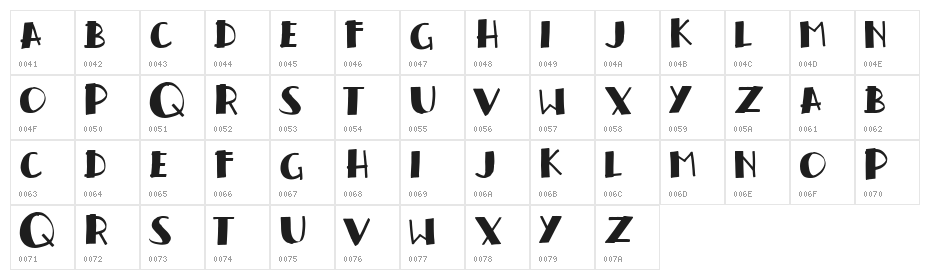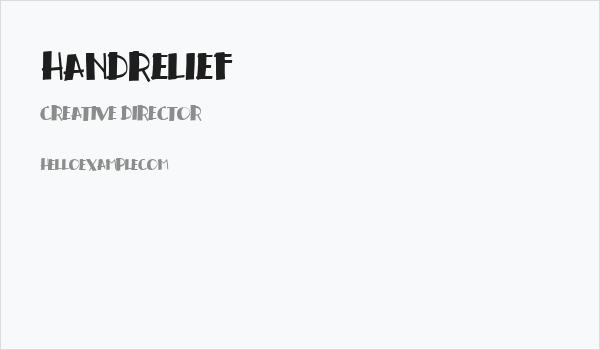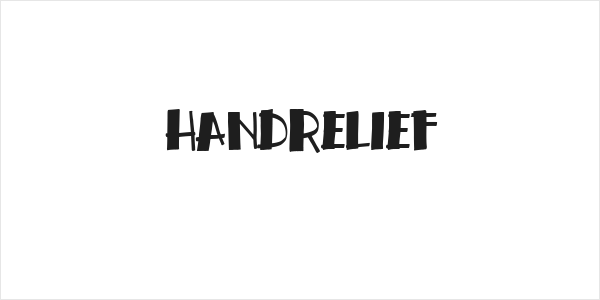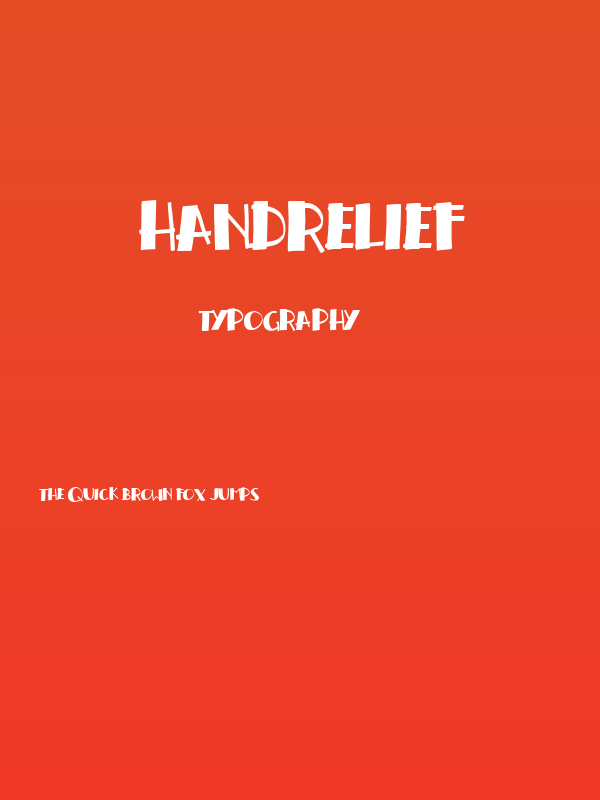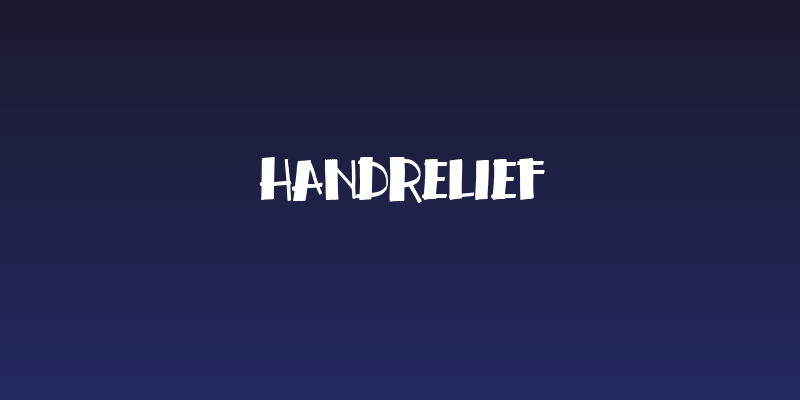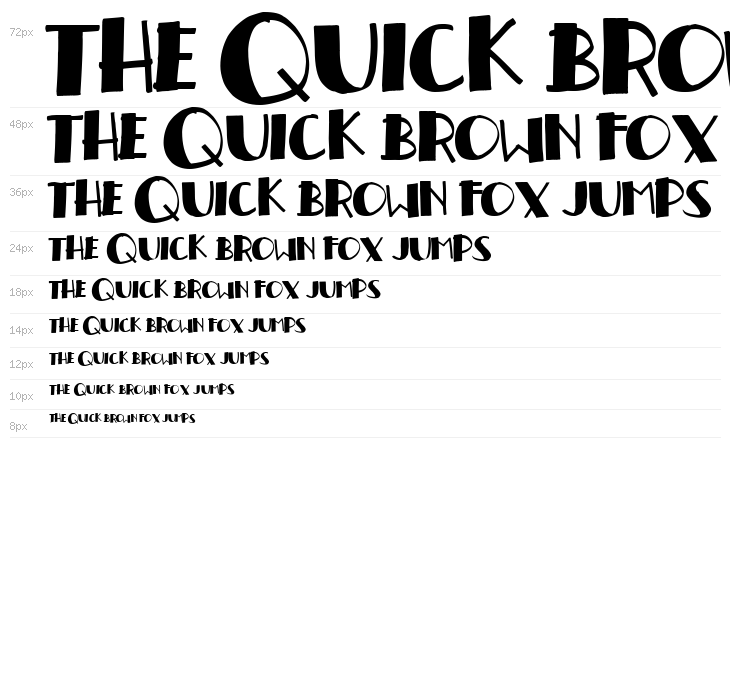
handrelief Font
handrelief Description
This font features a bold and playful design with a hand-drawn aesthetic. The characters are thick and slightly irregular, giving them a whimsical and artistic feel. The strokes are uneven, adding to the handcrafted look, while the overall structure remains clear and legible. The uppercase letters are particularly striking, with exaggerated curves and angles that create a dynamic appearance. This font is well-suited for creative projects that require a touch of personality and flair.
| Overall Style | Playful, Artistic, Handcrafted |
| Proposed Projects | Ideal for children's book covers, playful branding, posters, and creative invitations. |